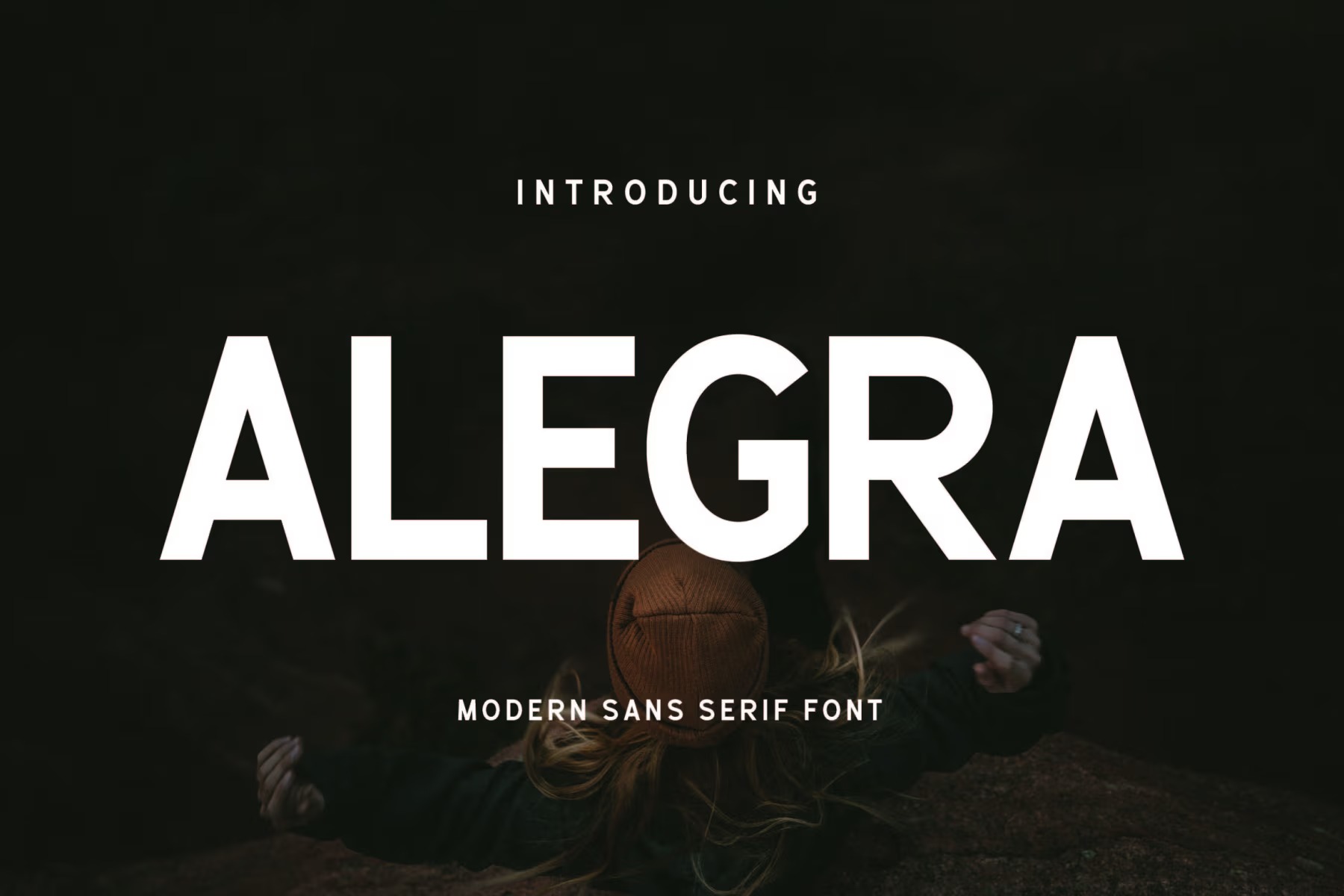
Alegra Font
Alegra Font is a professionally designed typeface that delivers clarity, structure, and consistent performance across various design applications. Alegra is a modern sans serif font inspired by the famous minimalist logo, perfect for the purposes of designing templates, brochures, videos, advertising branding, logos, invitation, layout design, elegant crafting, beauty design and much more.